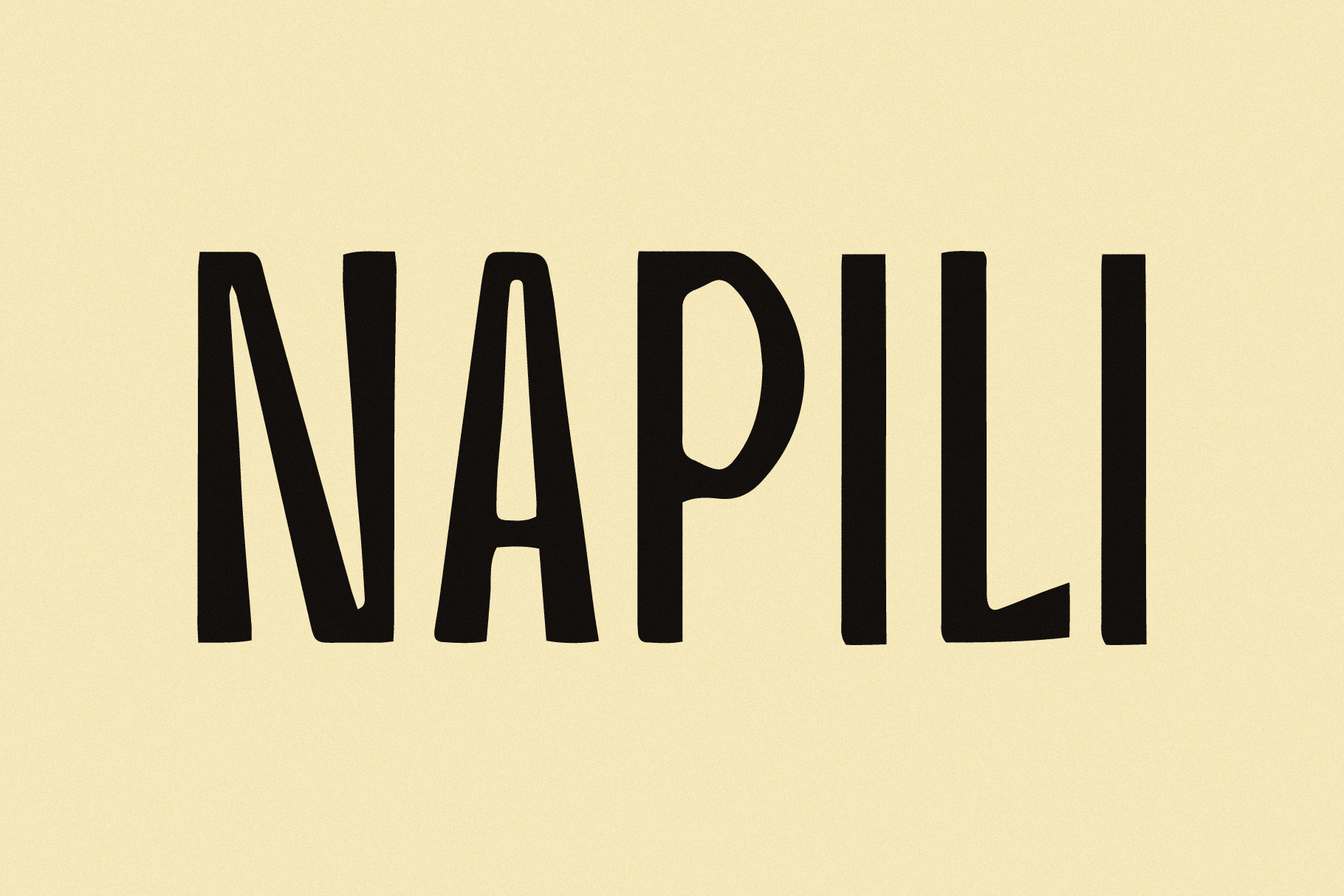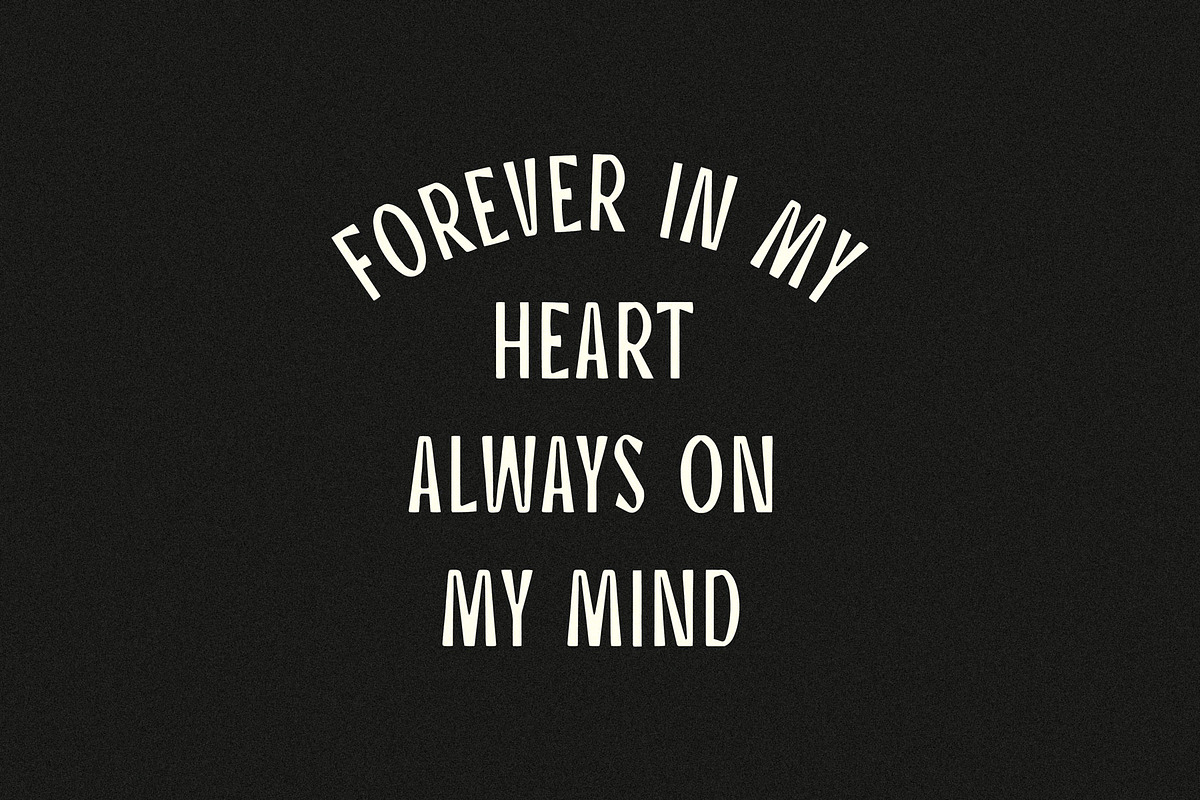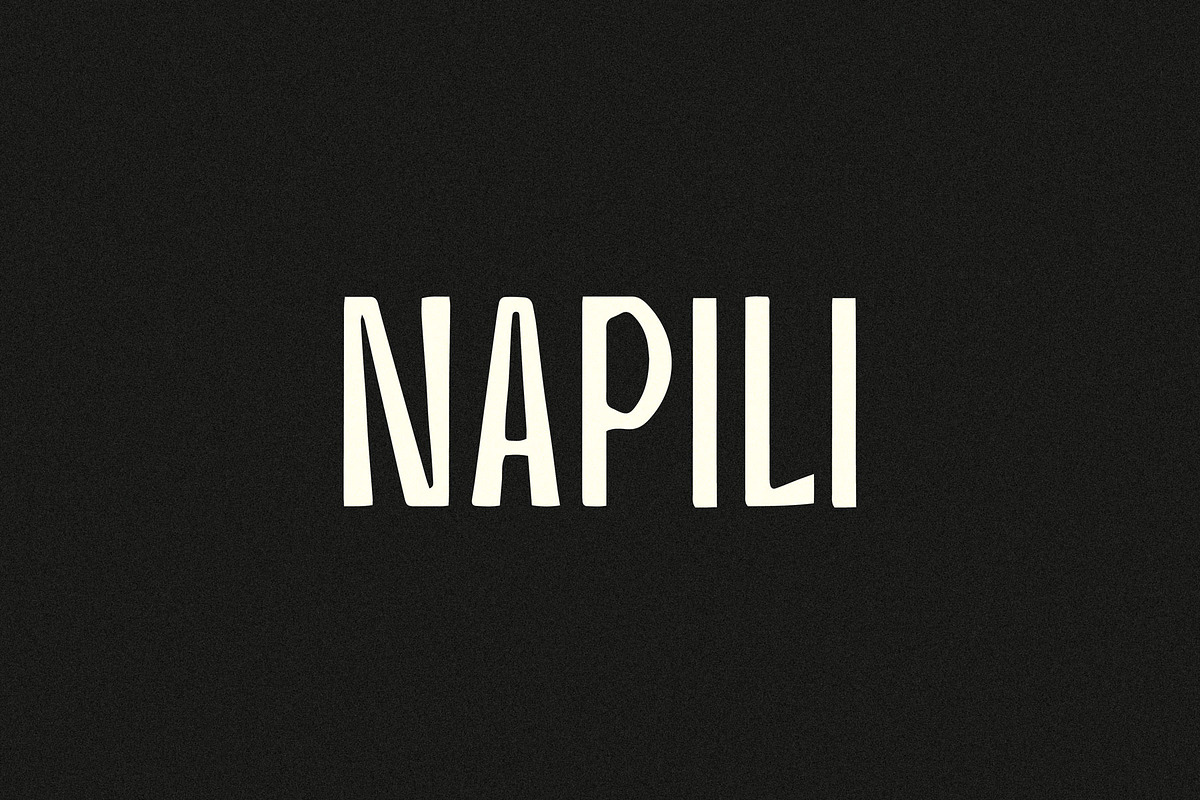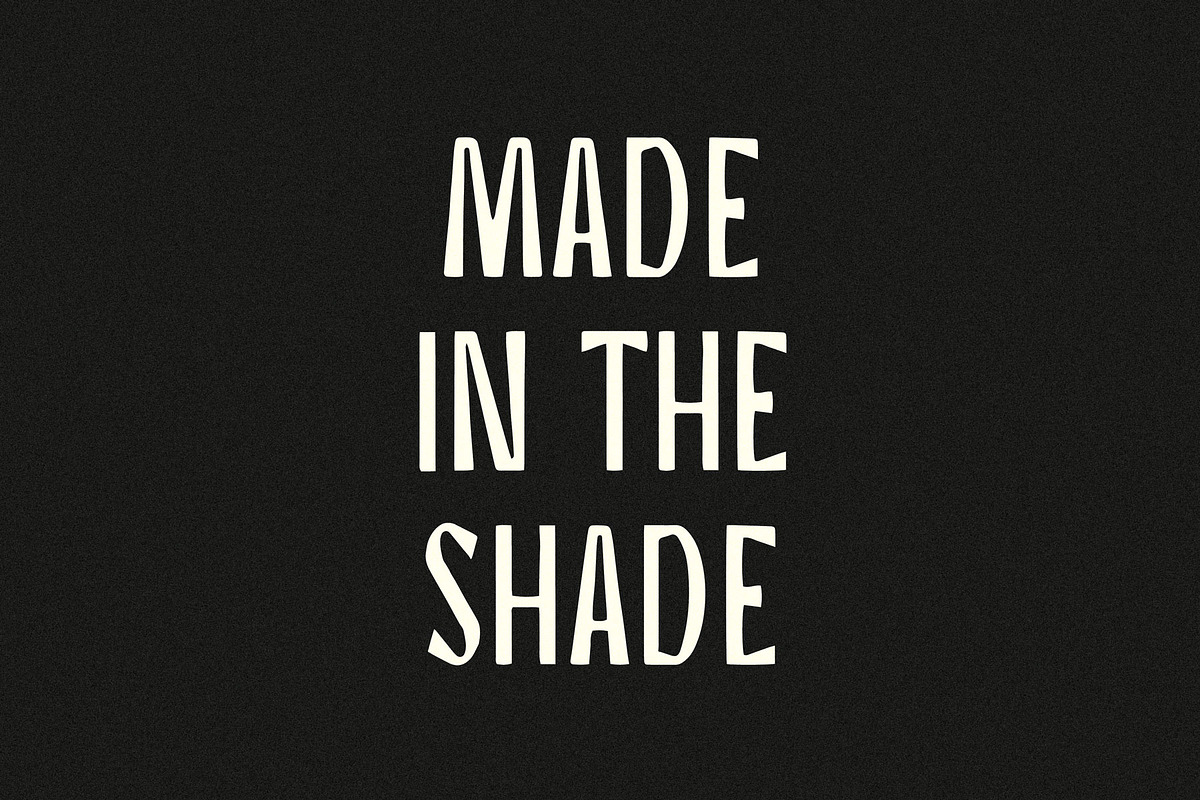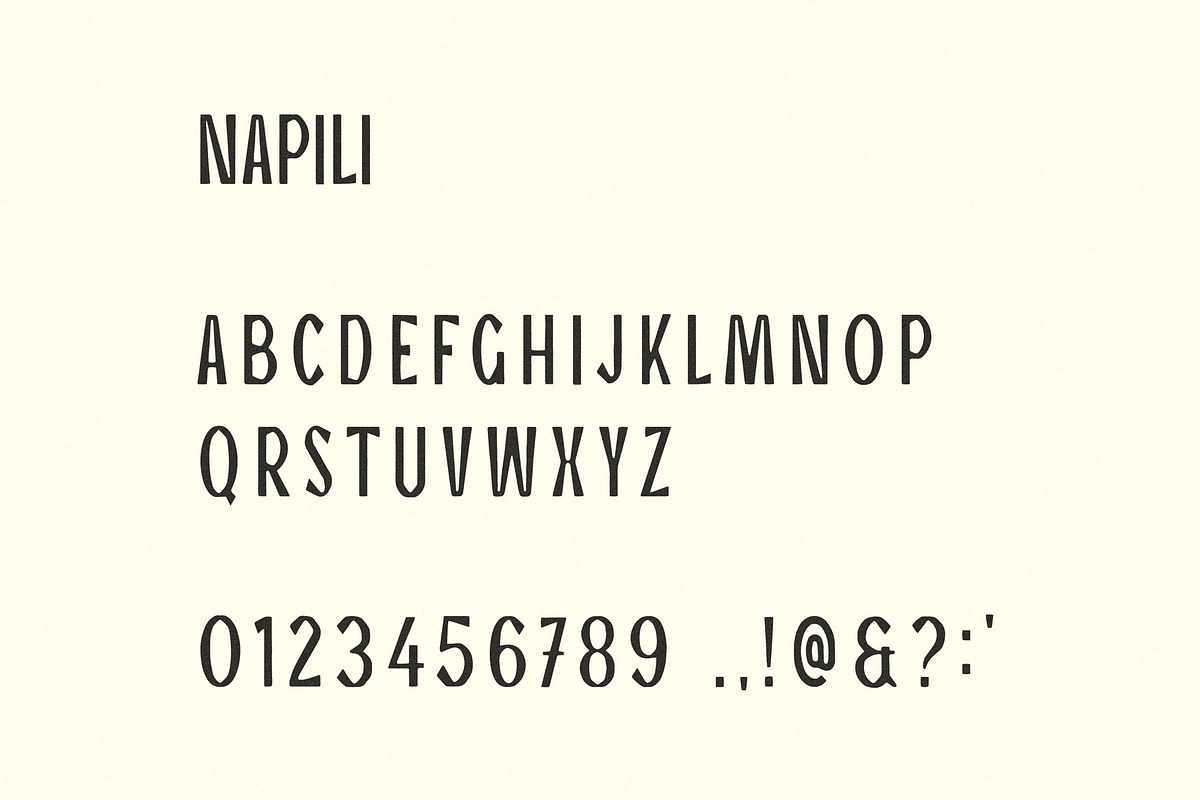
Napili | A Tropical Display Font
Tropical, But Still Employed.
It’s got just enough tropical charm to make your layout feel relaxed, without leaning too far into flip-flop territory. Clean and breezy with a bit of polish — like linen pants that actually fit.
Basic Latin support with a limited set of accented characters.